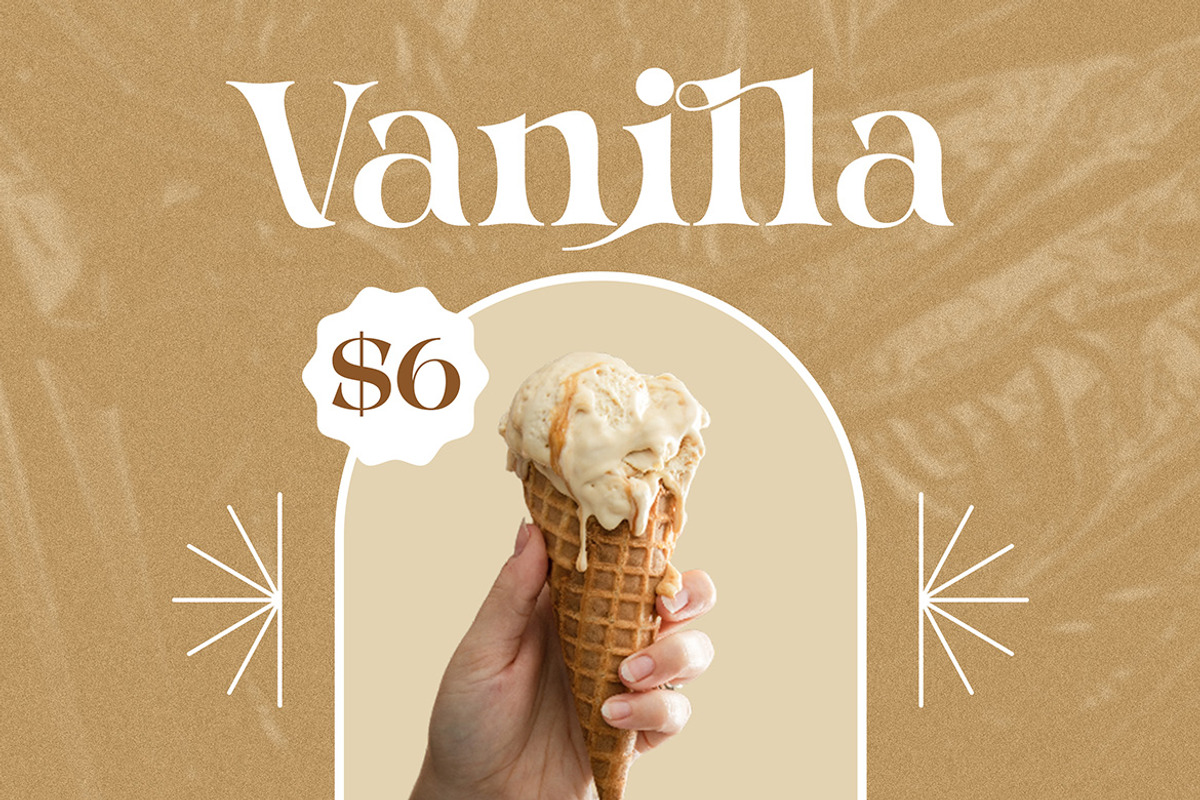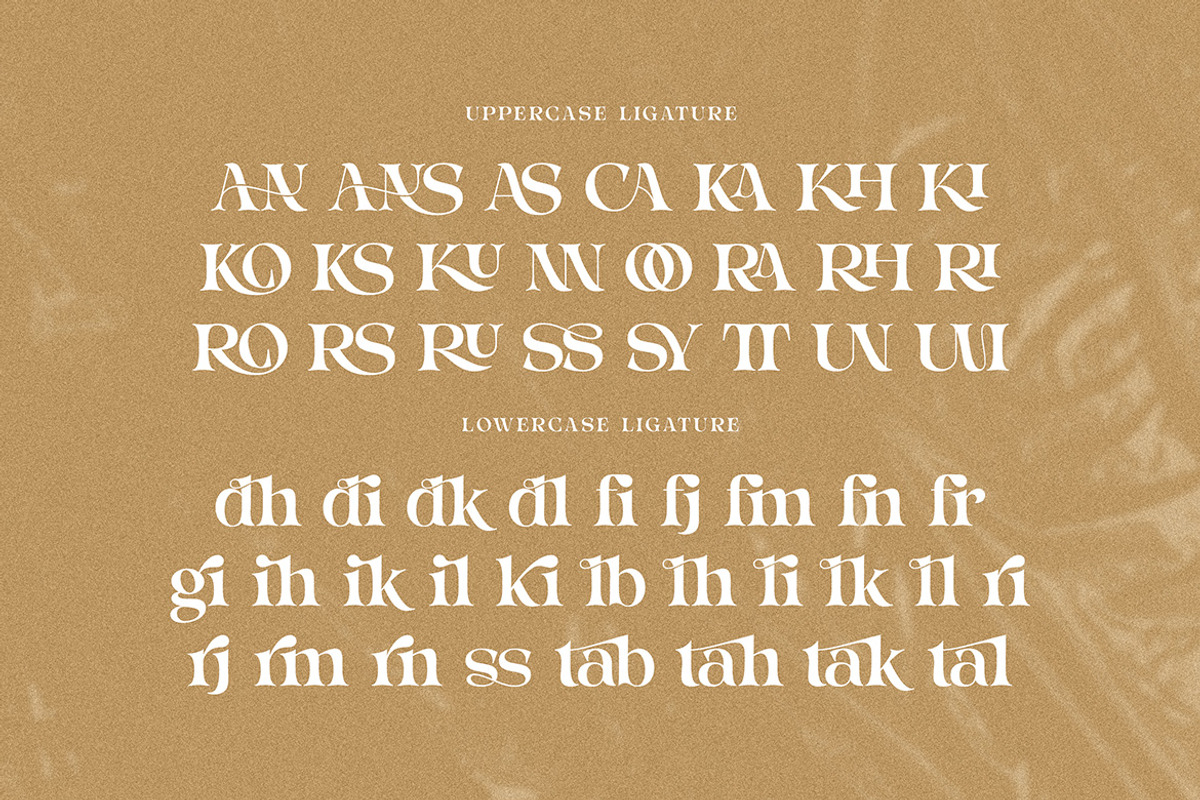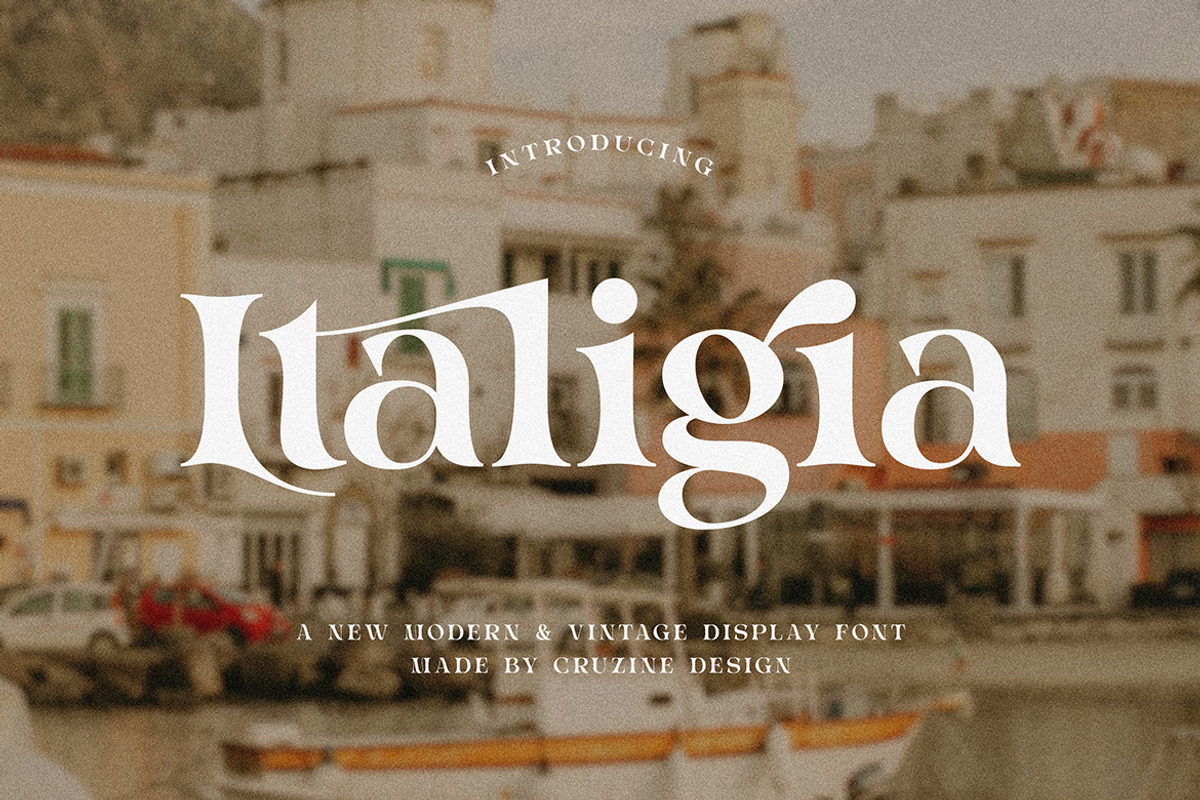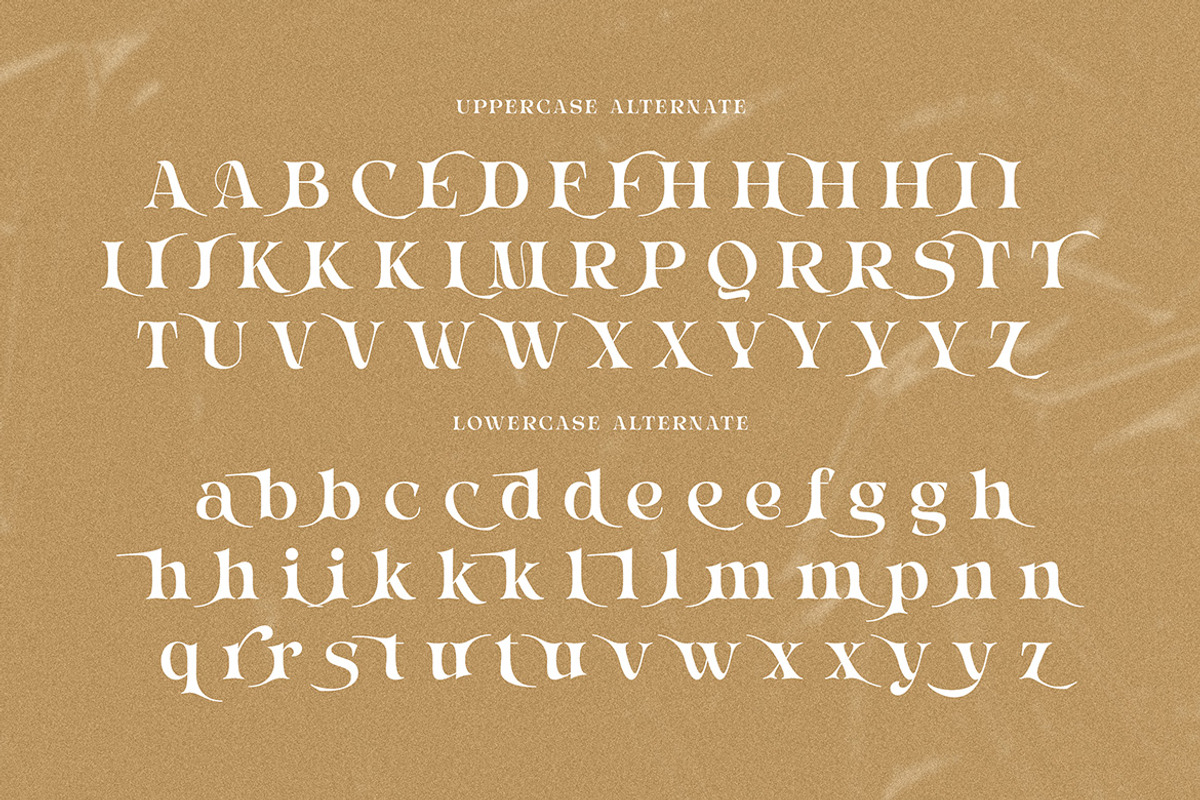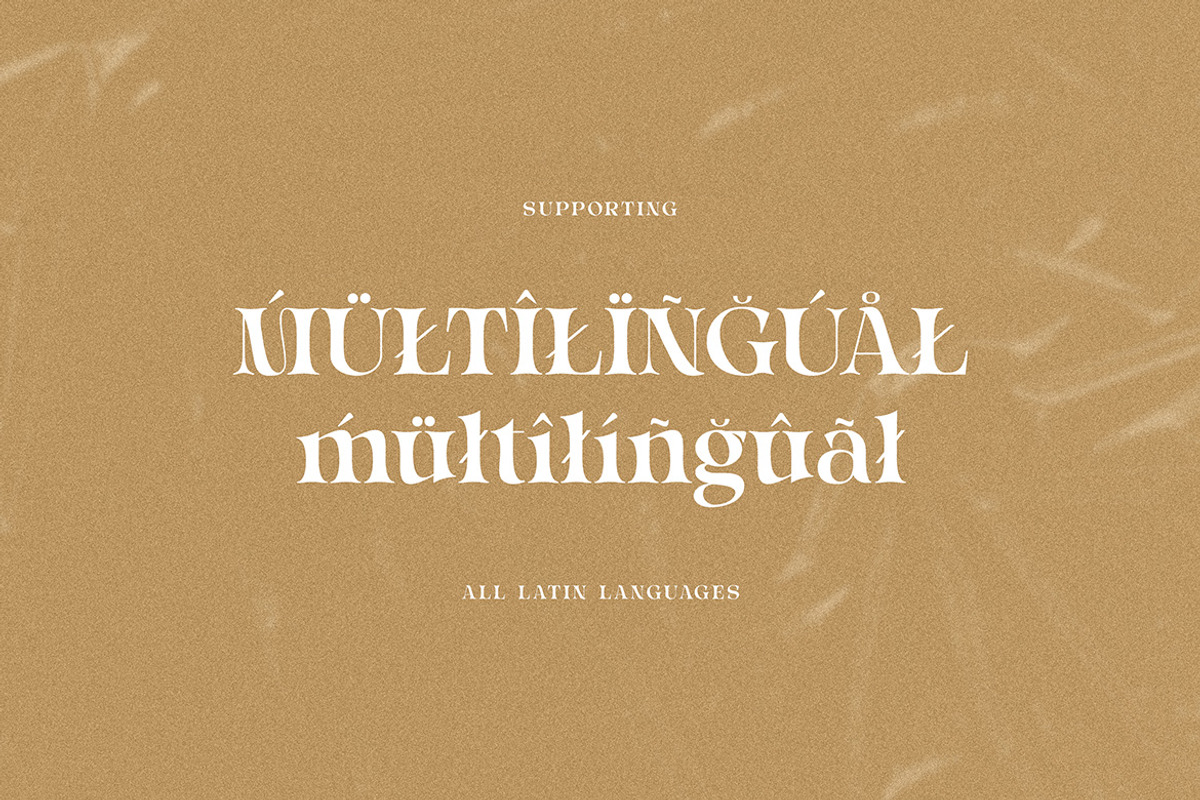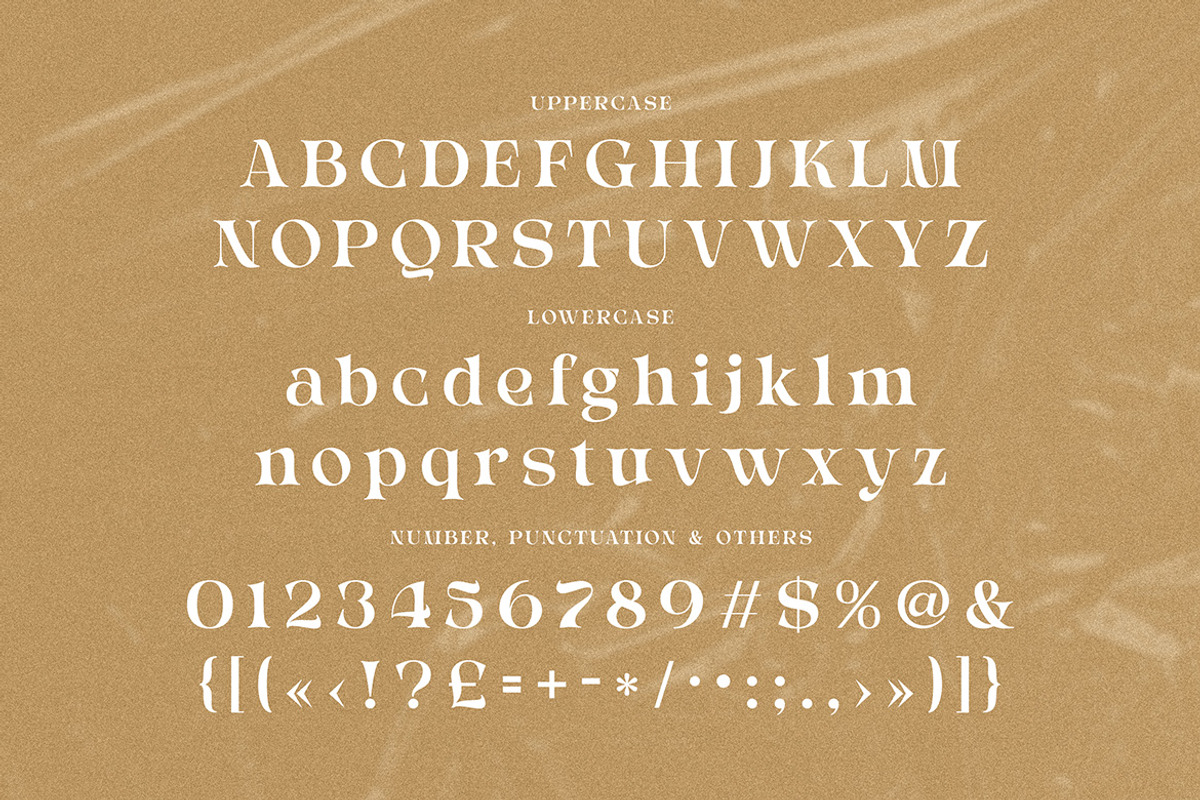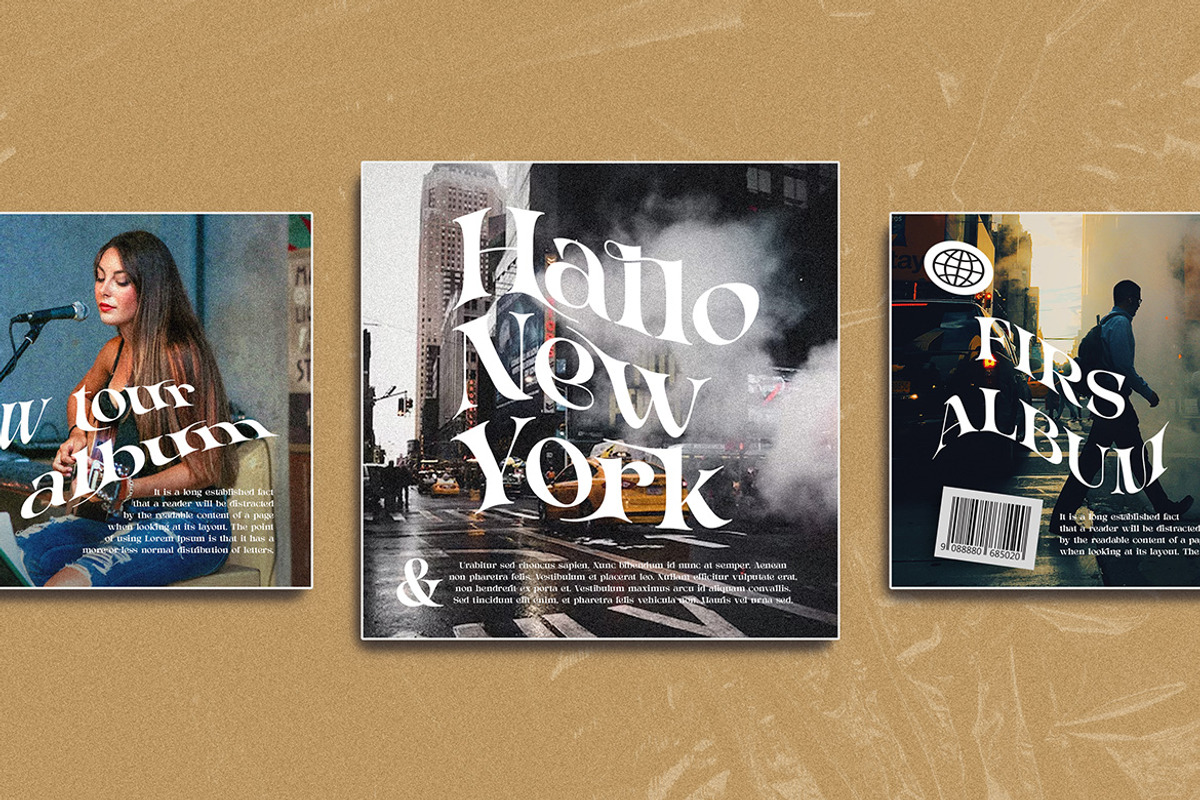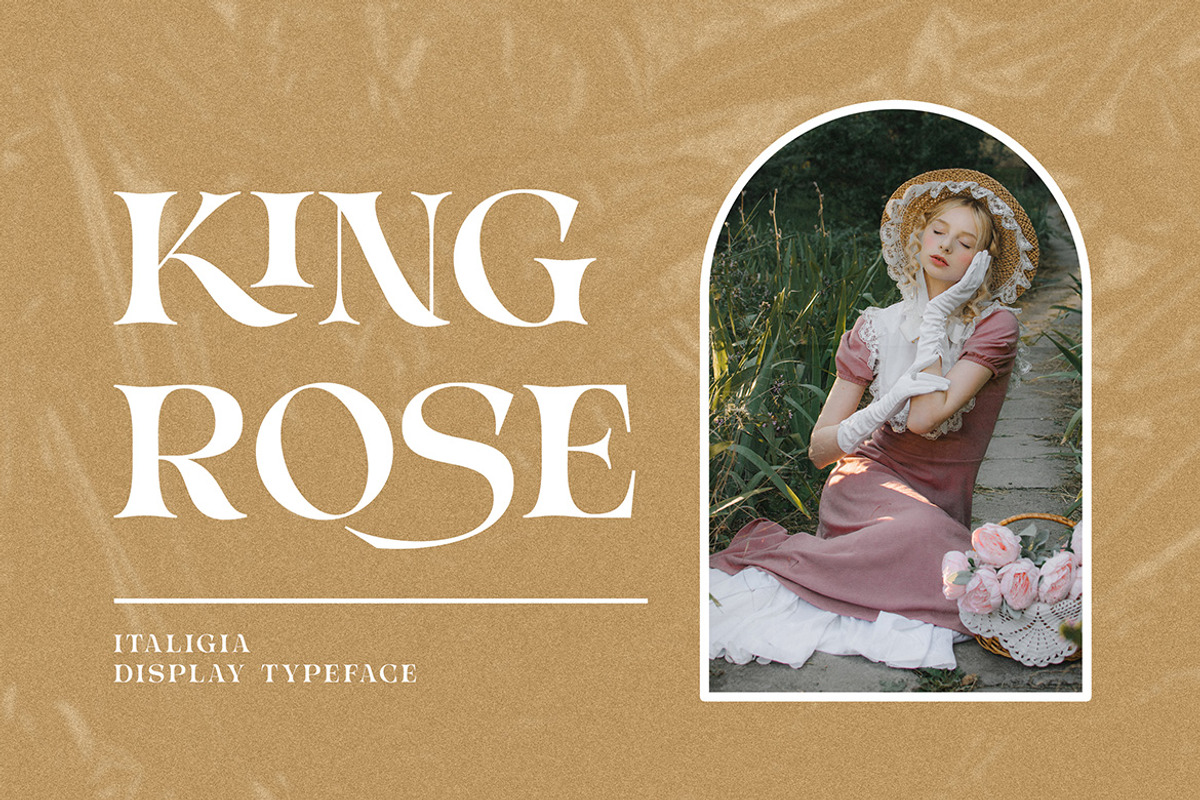
Italigia Retro Bold Serif
Trendy, elegant, modern, retro & decorative style serif font for your new modern projects. Luxury, fancy, bold and fashion style on Italigia font will be great for any branding project. Lot of alternates and ligatures will help you to create unique and original logo design or website header! Enjoy :)
- Alternate characters
- Lot of ligatures
- Great for modern branding projects!